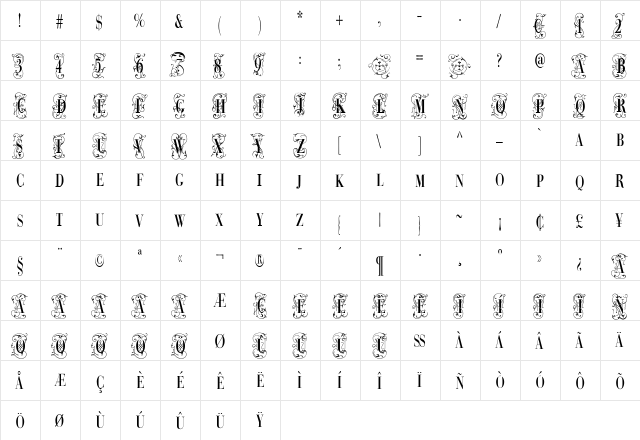
BodoniClassicDecoTwoCaps Regular
Design Context for BodoniClassicDecoTwoCaps Typeface
BodoniClassicDecoTwoCaps has the warm character of retro typography — evoking diners, record sleeves, and the golden age of print advertising.
Font Pairing: Combine BodoniClassicDecoTwoCaps with a simple slab or neutral sans — period-accurate companions reinforce the vintage feel without competing for attention.
Pro Tip: Lean into BodoniClassicDecoTwoCaps's period character by pairing it with aged paper textures, muted colour palettes, and vintage illustration styles.